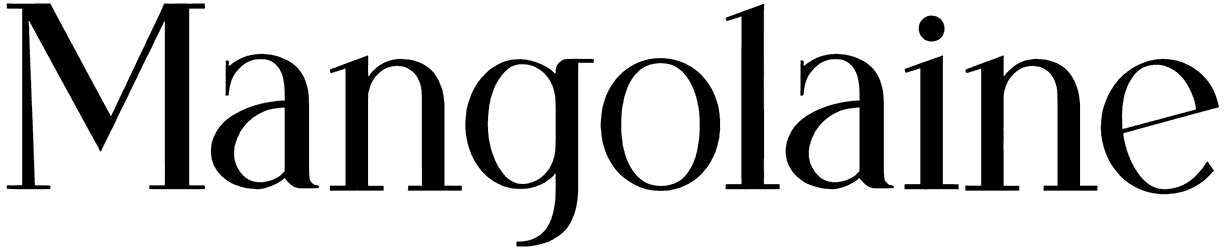
Mangolaine Font
Customize your logo designs with Mangolaine, and you’ll see what has been missing from your design all this time. Sophistication, vision, and great taste are all part of the great impact of using this serif font in your branding projects.
There’s a certain beauty to its serif letters that compels you to pick this logo font for introducing your business as a media manager, translator, lawyer, art consultant, and more. Looks like there’s nothing Mangolaine can’t do.